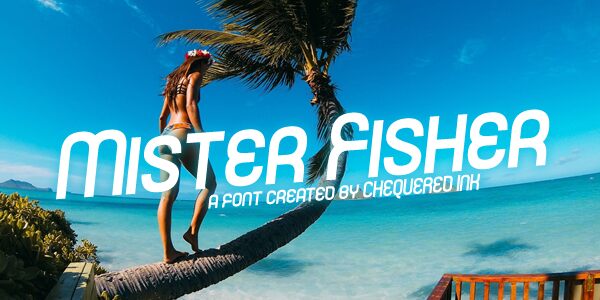
Mister Fisher
Mister Fisher is a bold, attention-grabbing display font designed by the creative minds at Chequered Ink. With its distinctive angular letterforms and sharp, industrial-inspired aesthetic, this font exudes a sense of power and confidence. The striking strokes and geometric shapes lend it a unique, modern edge, making it an excellent choice for headlines, branding, and eye-catching typographic treatments.
Mister Fisher's versatility extends beyond its visually striking appearance. Its legibility and clean lines also make it suitable for a variety of applications, from editorial design to packaging and digital interfaces. Its strong, confident personality can add a touch of edgy sophistication to any project, seamlessly blending form and function for maximum impact.
Mister Fisher by Chequered Ink.